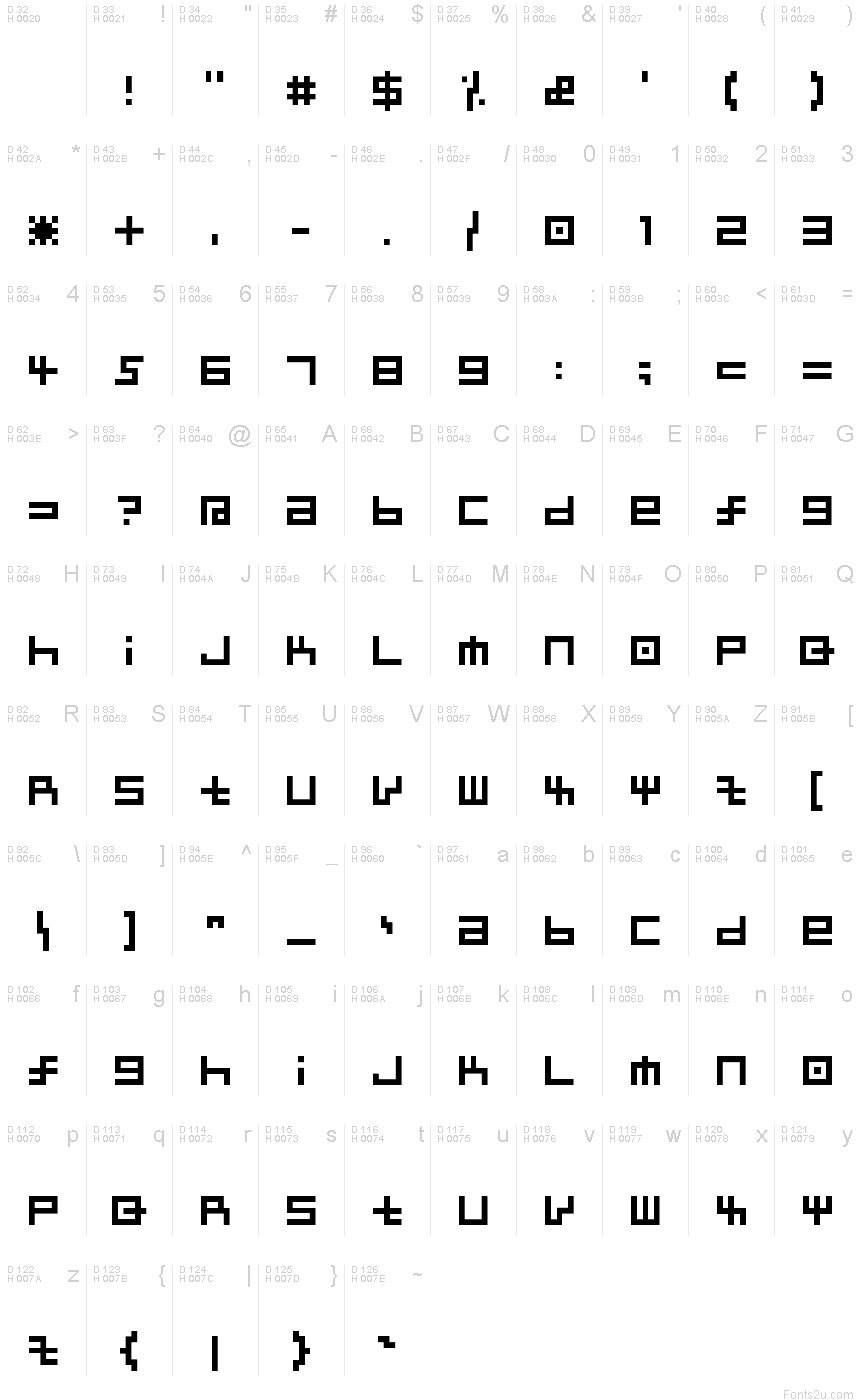
kairee
Kairee font is a free pixelated bitmap typeface with a bold, modular personality. Each letter is carved from chunky square blocks and tight right angles, creating a maze-like rhythm that feels both retro and distinctly futuristic. The solid black shapes and boxy counters give text a dense, almost architectural weight that jumps off the screen.
Using Kairee, short words and acronyms turn into graphic logos on their own, which works beautifully for game titles, cyberpunk posters, tech stickers, glitch art covers, and underground event flyers. This free font shines at large sizes where its crisp grid structure can really show. Try pairing Kairee with a clean, light grotesk for body text to keep your layouts sharp but readable.